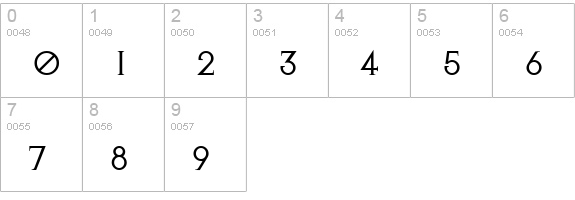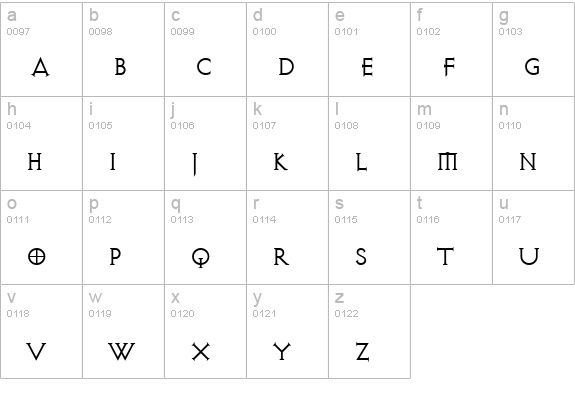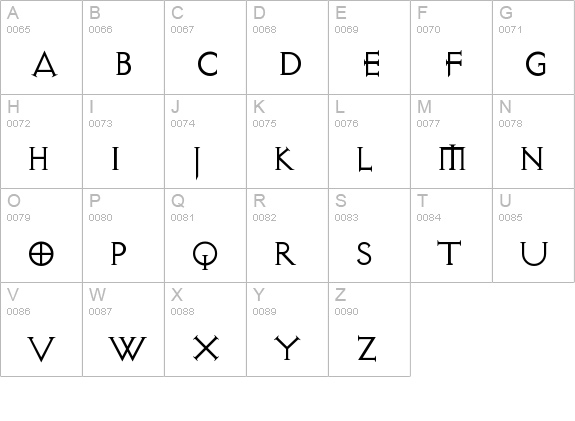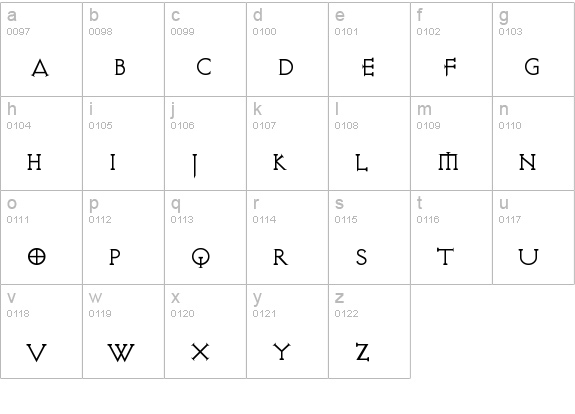
Avalon Quest font is a captivating and mystical typeface that will transport you to a world of fantasy and adventure. With its elegant and enchanting design, this font is perfect for adding a touch of magic to your projects. The intricate details and unique style of Avalon Quest make it a standout choice for any creative endeavor. Whether you're designing a book cover, poster, logo, or website, Avalon Quest font will bring a sense of wonder and imagination to your work. Its versatile nature allows it to be used in a variety of design settings, making it a valuable addition to any designer's toolkit. Best of all, Avalon Quest font is available for free download at FontsMarket.com. So why wait? Embark on your own quest for creativity and download Avalon Quest font today to add a touch of magic to your designs.